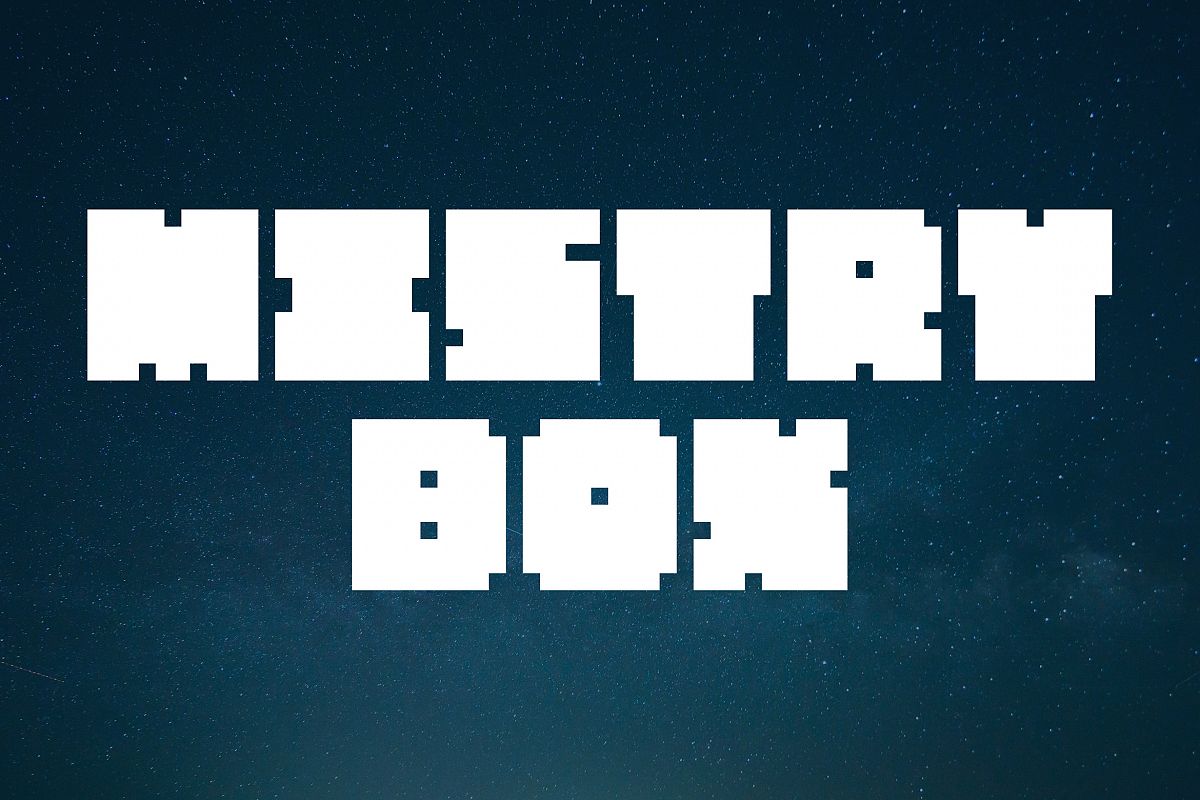
Mistry Box is heavy bold display font, perfectly fits for big titles, branding, logos and much more..
Included uppercase, lowercase, numbers, punctuation’s, some alternates and ligatures.